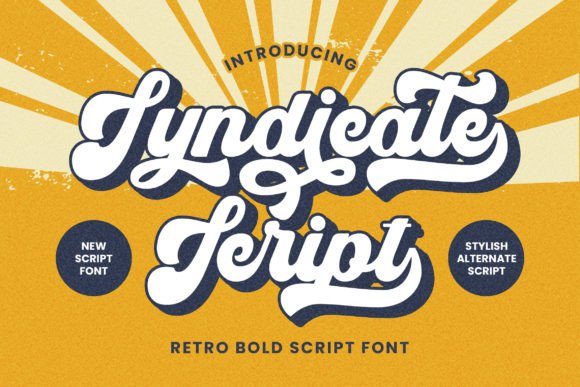
Journey into the realm of elegance and timeless beauty with Syndicate Script, a handcrafted font that captures the essence of vintage charm. From captivating logos and alluring wedding invitations to eye-catching advertisements and sleek product packaging, Syndicate Script leaves an indelible mark on every project it graces.
Born from the creative vision of Arendxstudio, Syndicate Script is not just a font; it's an artistic masterpiece that oozes personality and sophistication. With its distinctive handwritten characters, each letter dances across the page with grace and fluidity, evoking a sense of nostalgia and authenticity.
Welcome to the world of Syndicate Script, where imagination runs wild and creativity knows no bounds. As you embark on your design journey, let Syndicate Script guide you through a myriad of possibilities, transforming your projects into captivating works of art. Experience the magic of Syndicate Script today and let your designs speak volumes of elegance and timeless appeal.
- Exquisite Handwritten Characters: Syndicate Script boasts a collection of meticulously crafted characters that emulate the beauty of handwritten script. Each letter is a testament to the artistry and attention to detail that went into the font's creation.
- Perfect for Branding Projects: With its vintage charm and timeless appeal, Syndicate Script is the perfect choice for branding projects seeking a touch of sophistication and elegance. Create logos that exude personality, business cards that leave a lasting impression, and marketing materials that capture the attention of your audience. Syndicate Script adds a touch of class and distinction to any branding endeavor, helping you stand out from the crowd and make a statement.
- Ideal for Logos and Wedding Designs: Syndicate Script is a natural choice for logos and wedding designs that seek to convey a sense of romance, tradition, and timeless elegance. The font's graceful curves and flowing lines bring an air of sophistication and charm to any project, making it the perfect choice for creating logos that exude professionalism and wedding invitations that capture the magic of the occasion.
- Captivating Media Posts and Advertisements: In the realm of social media and advertising, Syndicate Script shines as a font that commands attention and draws viewers in. Create captivating media posts that resonate with your audience and leave a lasting impression. Design advertisements that capture the imagination and entice potential customers with the allure of Syndicate Script's vintage charm.
- Perfect for Product Packaging and Design: Unleash the creative potential of Syndicate Script in product packaging and design projects. From sleek and stylish labels that add a touch of sophistication to product designs that exude a sense of nostalgia, Syndicate Script transforms ordinary products into objects of desire. Its vintage charm adds an emotional connection that engages customers and leaves a lasting impression.
- Ideal for Photography and Watermarks: Syndicate Script's timeless elegance and artistic flair lend themselves beautifully to photography and watermark applications. Add a touch of artistry to your photographs with watermarks that blend seamlessly into the image, enhancing its beauty without overpowering it. Syndicate Script's subtle charm adds a touch of sophistication to your photographs, making them stand out from the ordinary.
- Perfect for Stationery and Invitations: Create stationery and invitations that leave a lasting impression with the beauty and elegance of Syndicate Script. From letterheads that exude professionalism to invitations that capture the essence of special occasions, Syndicate Script adds a personal touch that makes every piece of correspondence a work of art. Its timeless appeal ensures that your stationery and invitations stand the test of time, becoming cherished keepsakes.